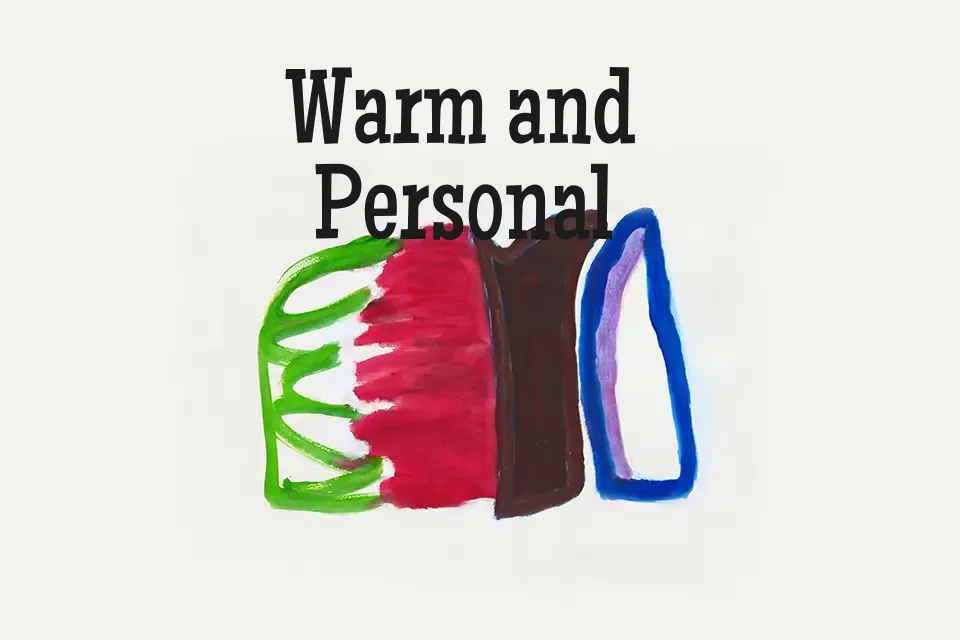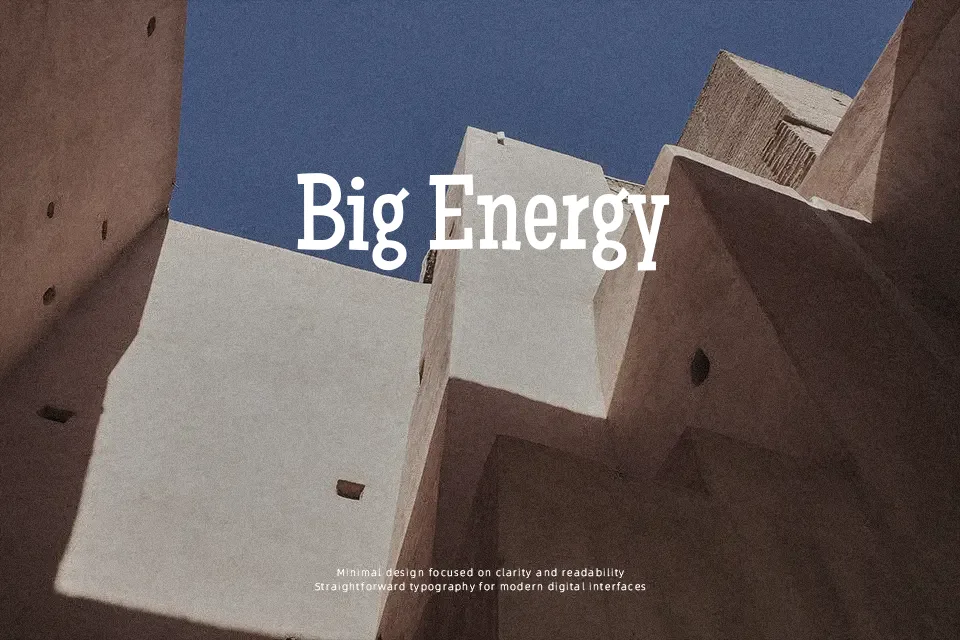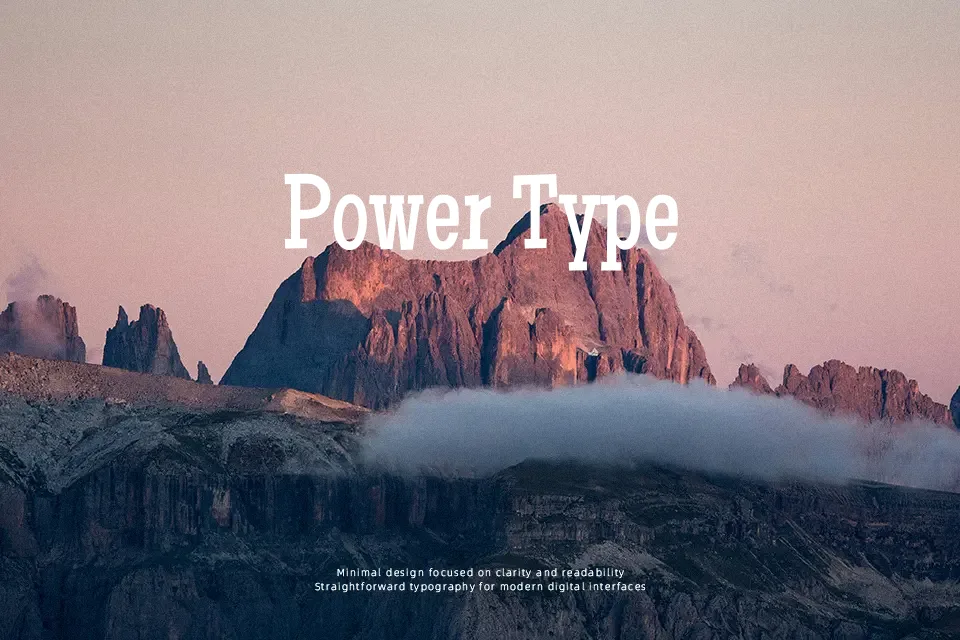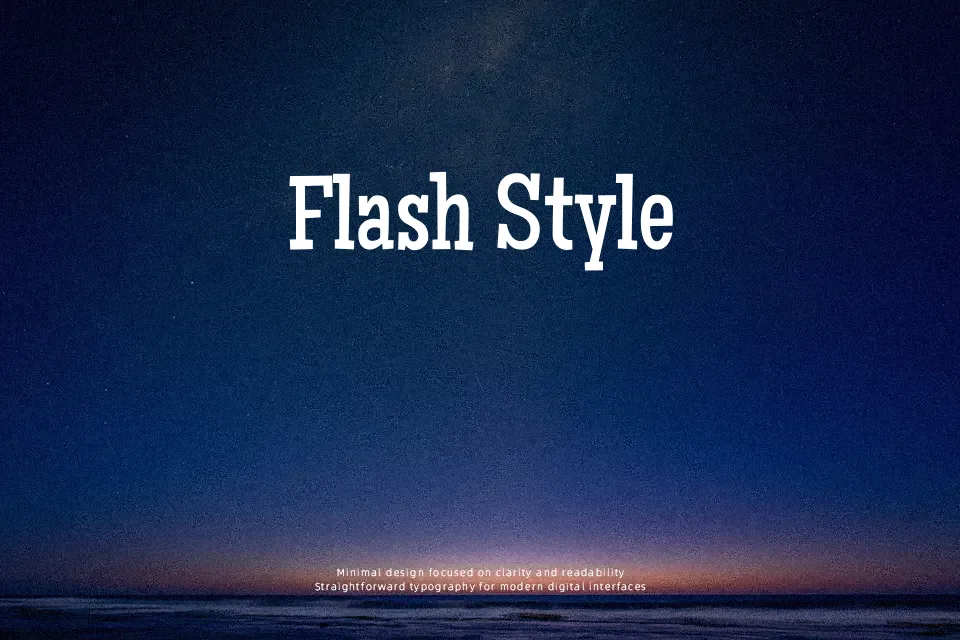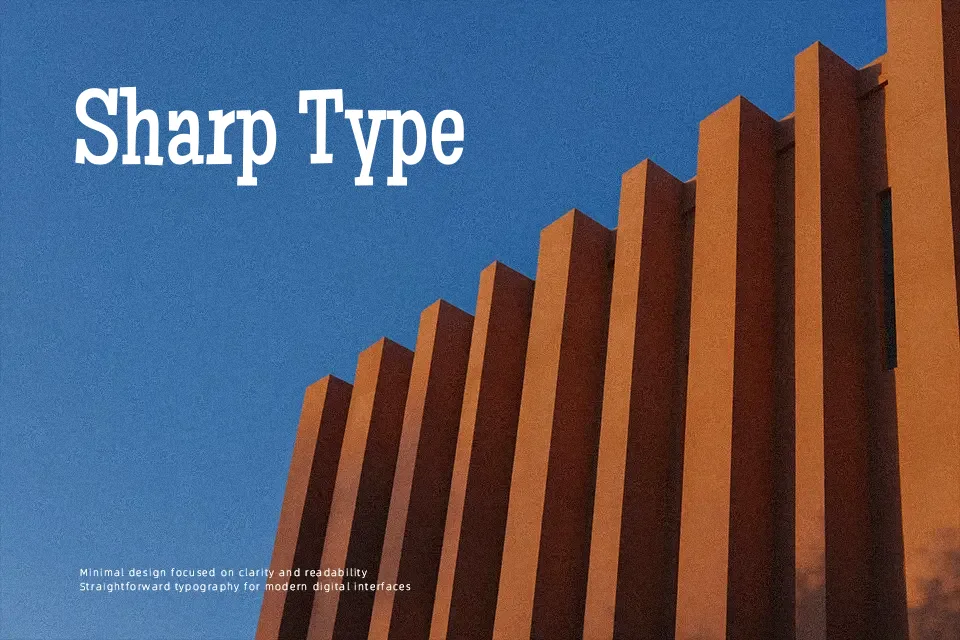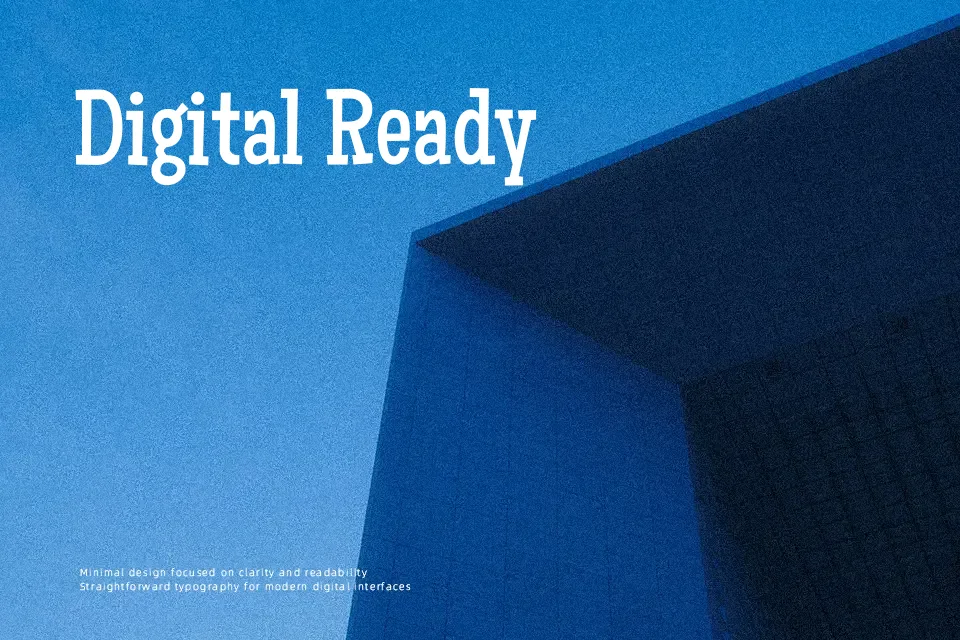
Maiden Orange Font
Designed by Astigmatic
Maiden Orange combines slender slab serifs with slightly irregular curves and open counters, giving it a breezy, hand-lettered character rather than a rigid text face. Strokes are relatively light, spacing is generous, and the overall rhythm feels bouncy, which keeps short lines readable while still looking decorative. It carries a strong mid‑century, sign-painter vibe, so it works nicely for playful headlines, children’s book covers, retro food packaging, or cheerful event graphics. For long body copy, dense UI layouts, or very formal branding, the quirky details can become tiring or feel out of place, so it is better treated as a display accent rather than a workhorse text family.
short retro headlines
playful event posters
lighthearted branding accents
dense UI text
highly technical reports
Perfect for branding, headline, and kids, with a bold and display style.